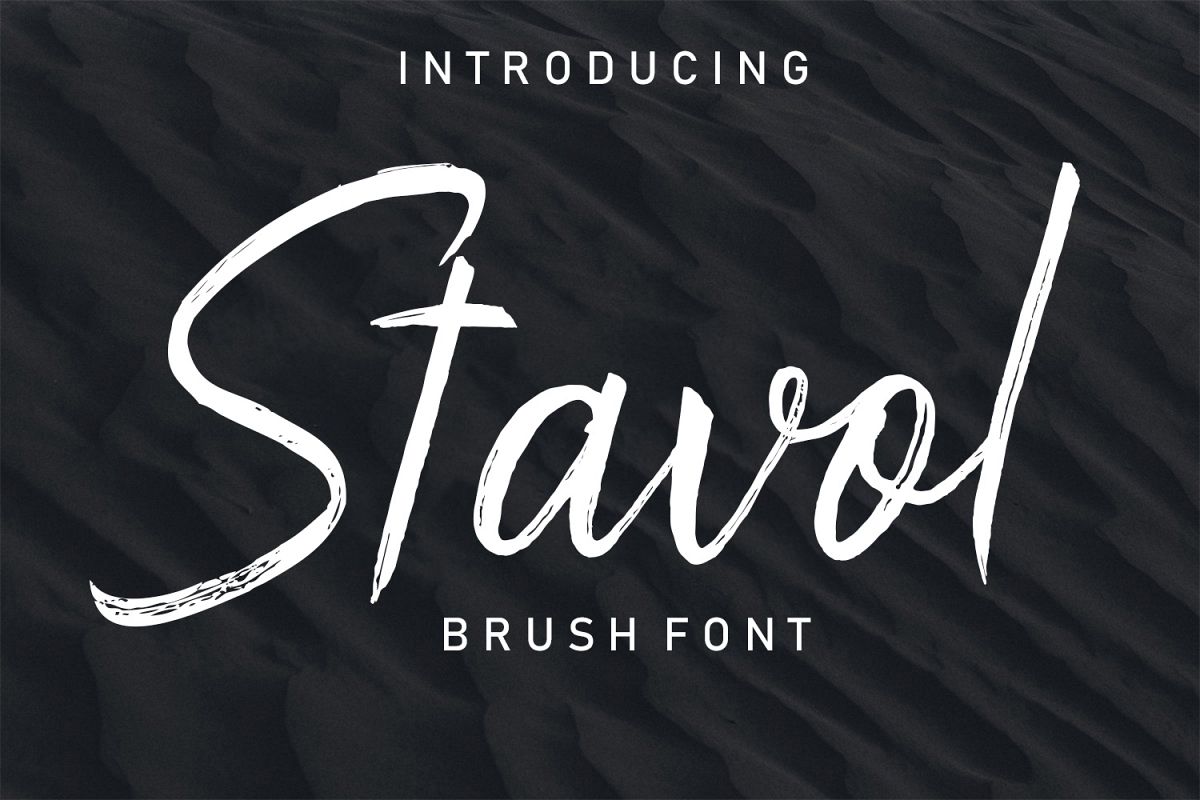
Stavol
Bongiorno is a brushed marker script with a rough edge and loads of texture for a brushed look. This font is perfect for using in ink, brushed designs and works great for display headers, invitations, posters, T-shirts, greeting cards and branding materials.fall